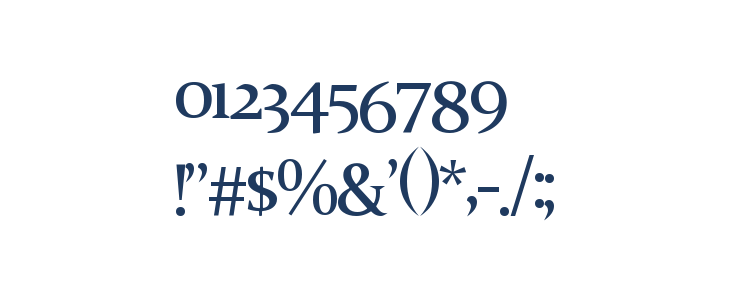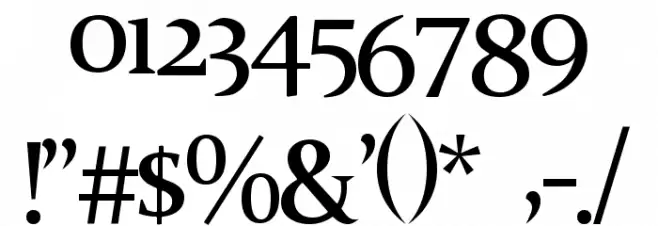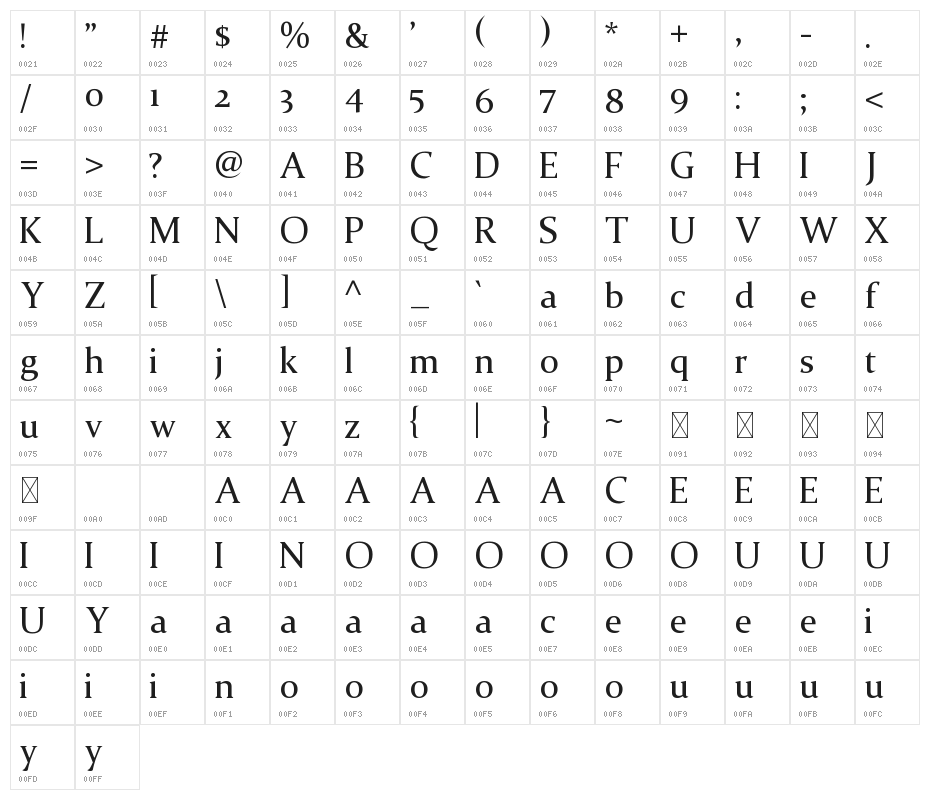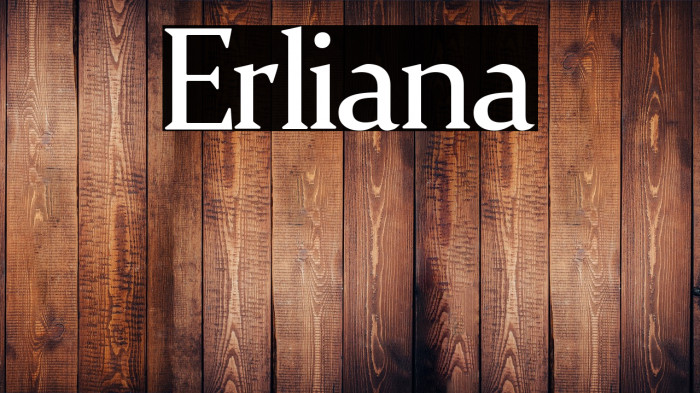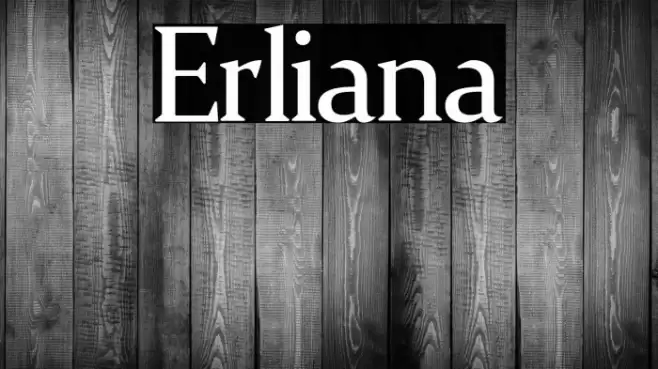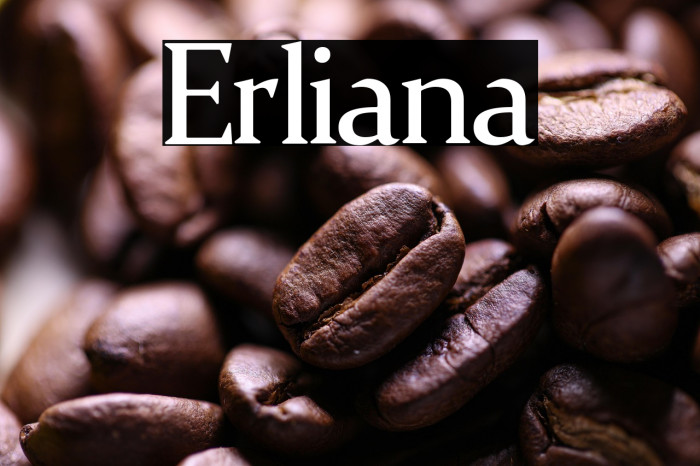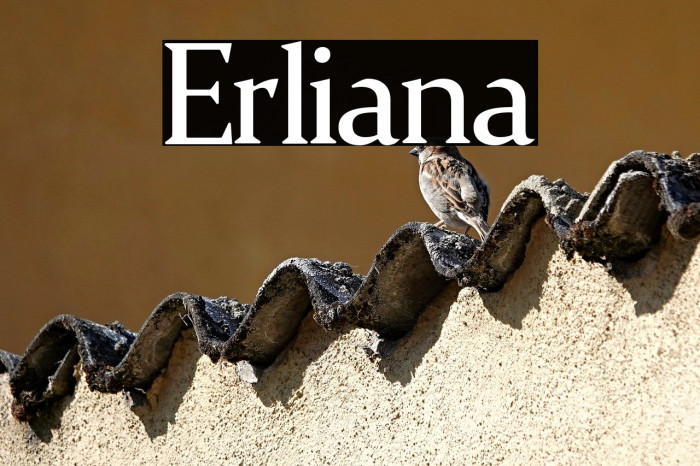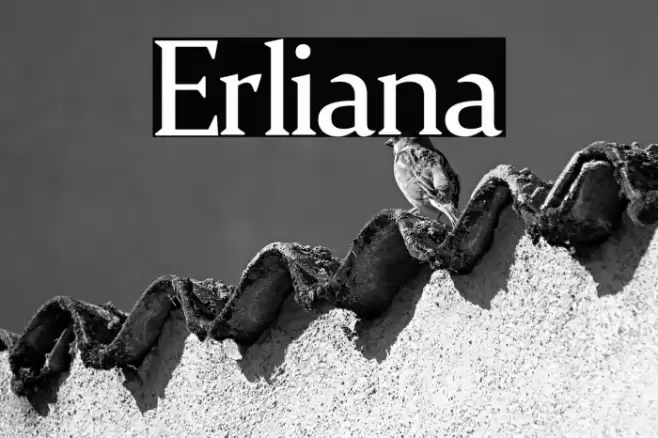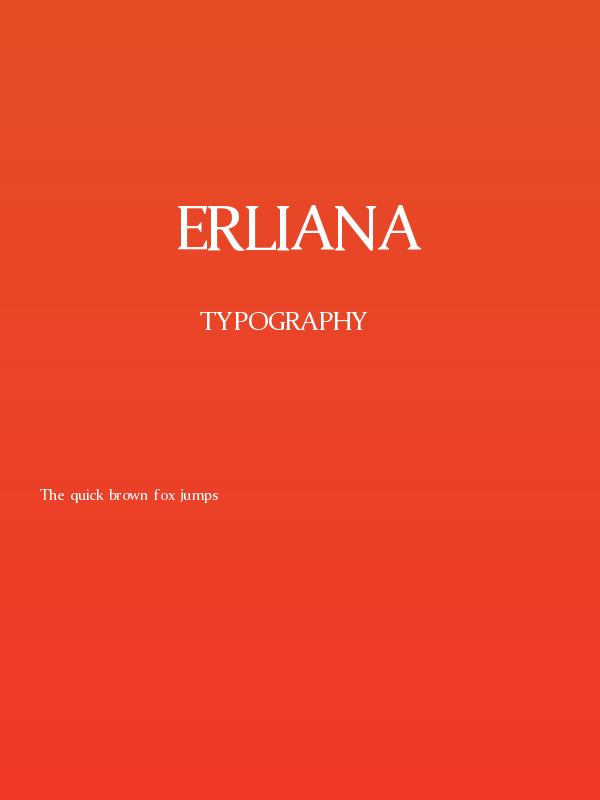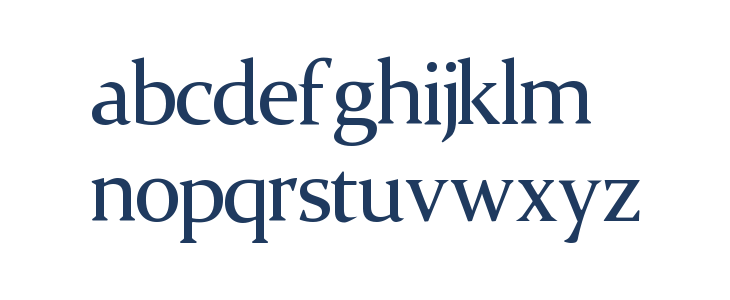
Erliana Font
Erliana Description
This typeface exhibits a classic serif style with a modern twist, characterized by its elegant and refined appearance. The uppercase letters are bold and commanding, while the lowercase letters maintain a graceful and fluid form. The numerals are clear and distinct, ensuring readability. Special characters are crafted with precision, adding to the font's versatility. The overall design is balanced, with a moderate contrast between thick and thin strokes, enhancing its legibility and aesthetic appeal. This font is suitable for a wide range of applications, from formal documents to creative projects.